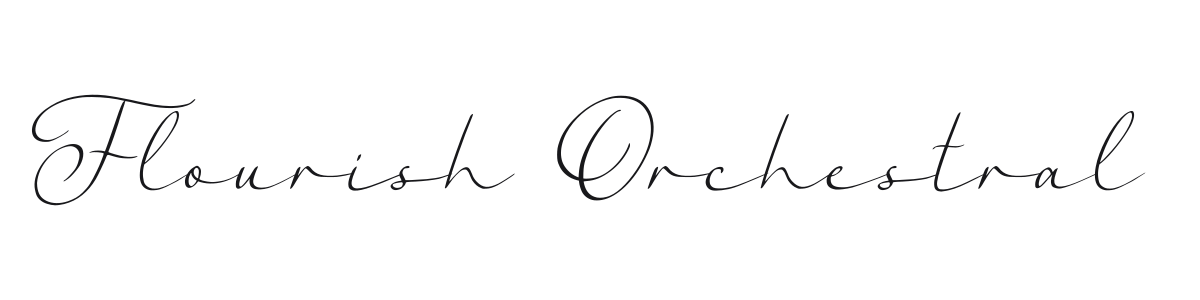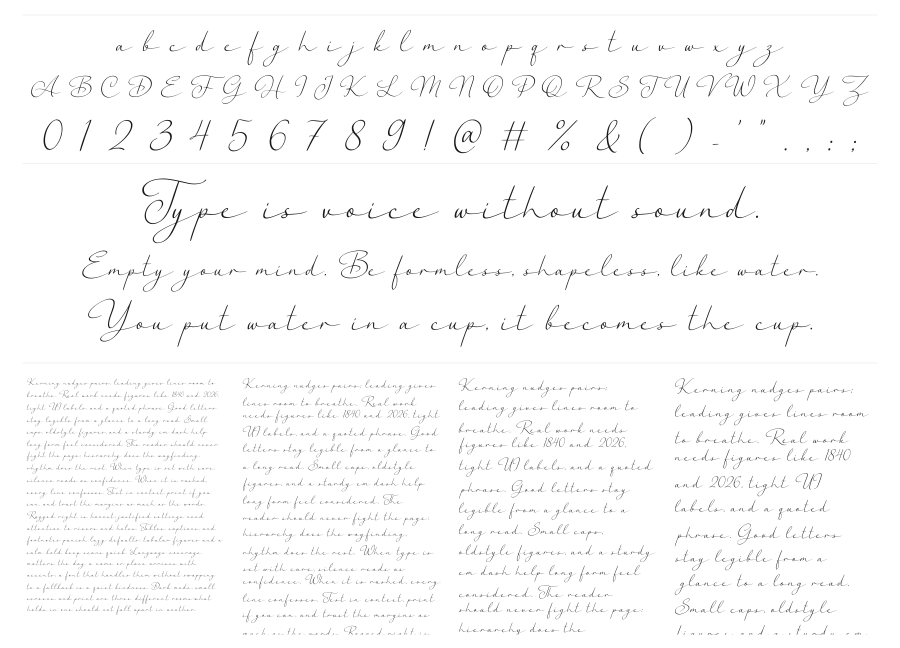
Flourish Orchestral
Flourish Orchestral is an ultra-thin formal script rooted in the copperplate and Spencerian calligraphic tradition. Its hairline strokes and sweeping flourishes on ascenders and descenders give it a breezy, almost effortless elegance. The design is at its best large, where the full drama of the looping connections and airy spacing can breathe.